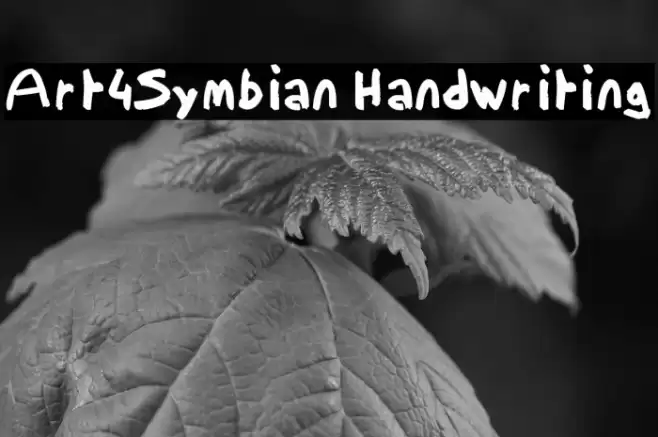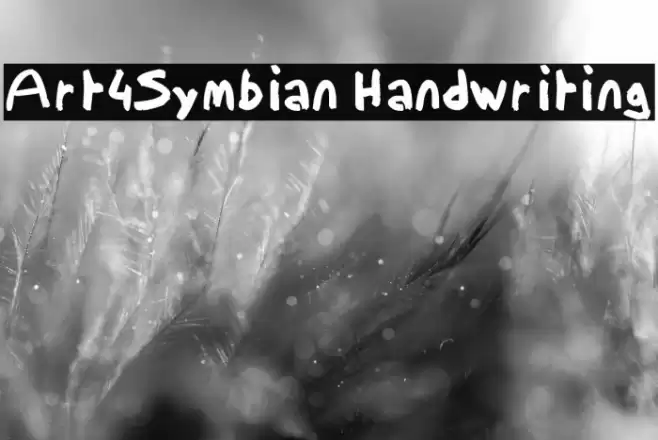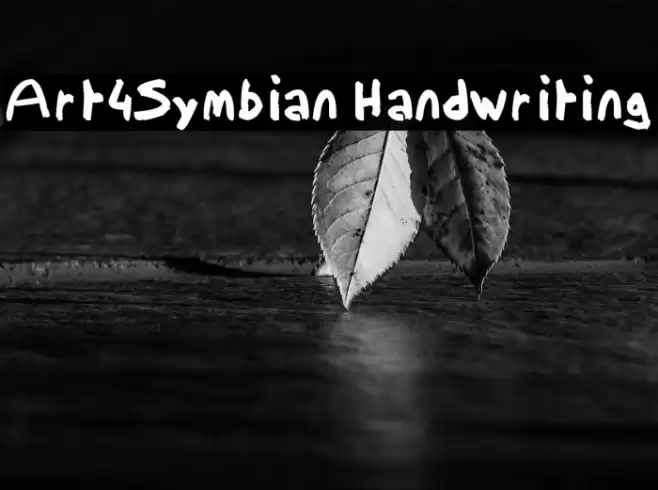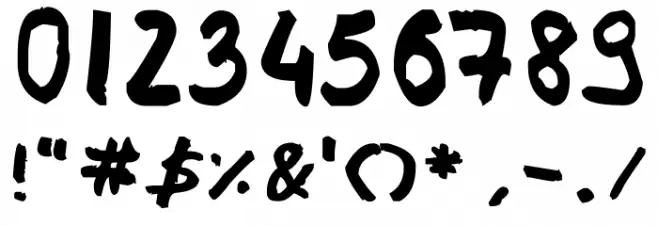
Art4Symbian Handwriting Font
Art4Symbian Handwriting Description
This font exhibits a bold, handwritten style that mimics the natural flow of handwriting with a playful and casual appearance. The characters are slightly irregular, adding a personal touch and warmth to the text. The strokes are thick and consistent, providing a strong visual impact. The uppercase and lowercase letters maintain a cohesive style, while the numerals and special characters complement the overall design. This font is ideal for projects that require a personal, informal, and approachable feel.
A bold, handwritten font with a playful and casual style from Uncategorized fonts.
- Proposed Projects: Ideal for greeting cards, personal invitations, informal branding, and creative projects that require a personal touch.
- Overall Style: Casual, Playful
- Use Case: Headlines, Logos, Informal Text